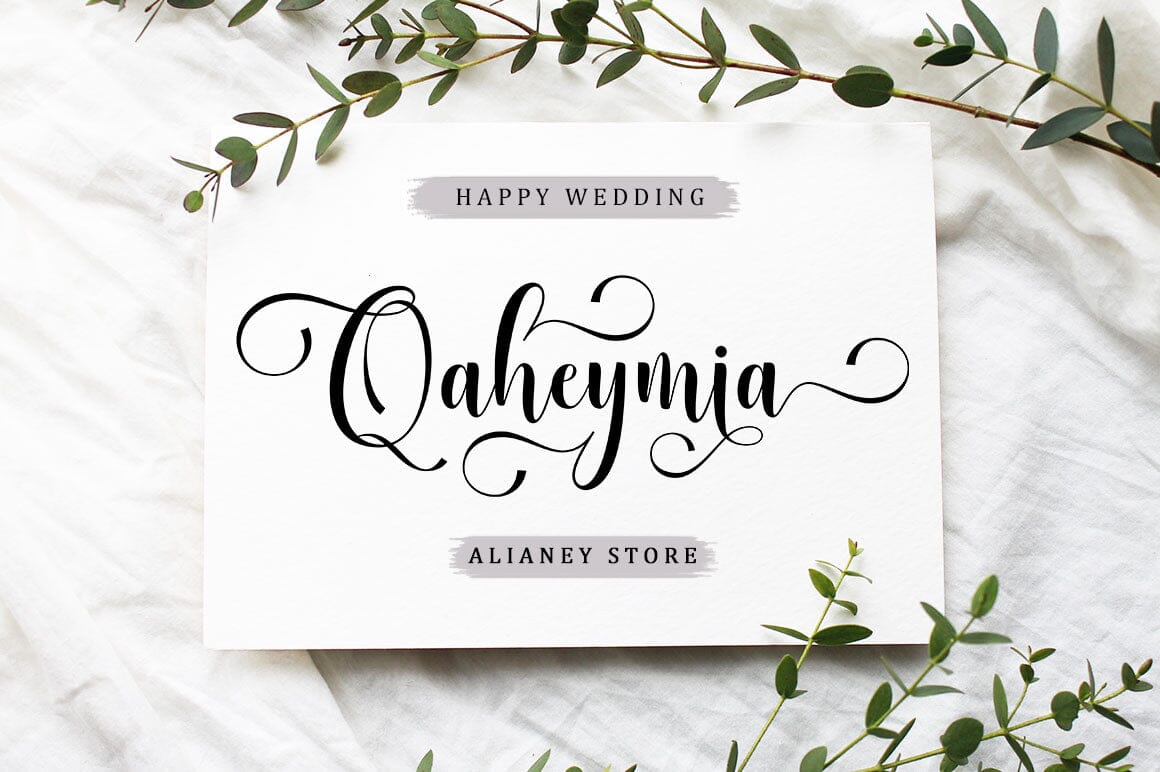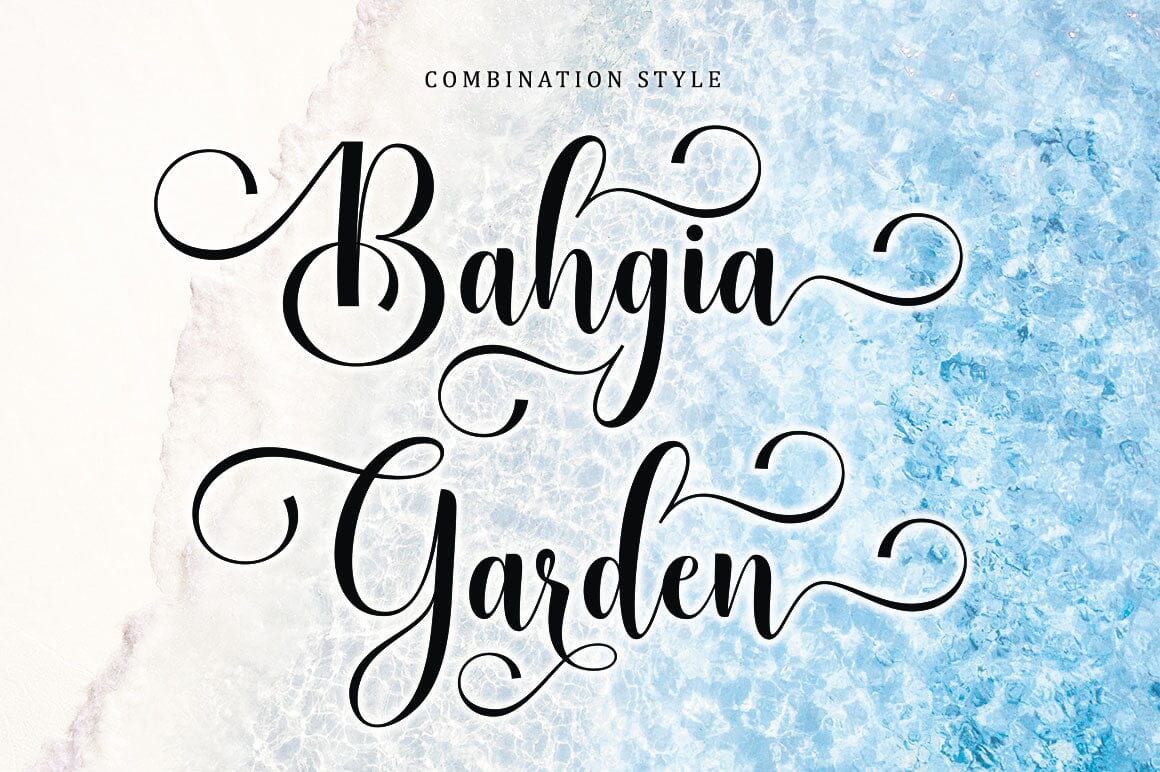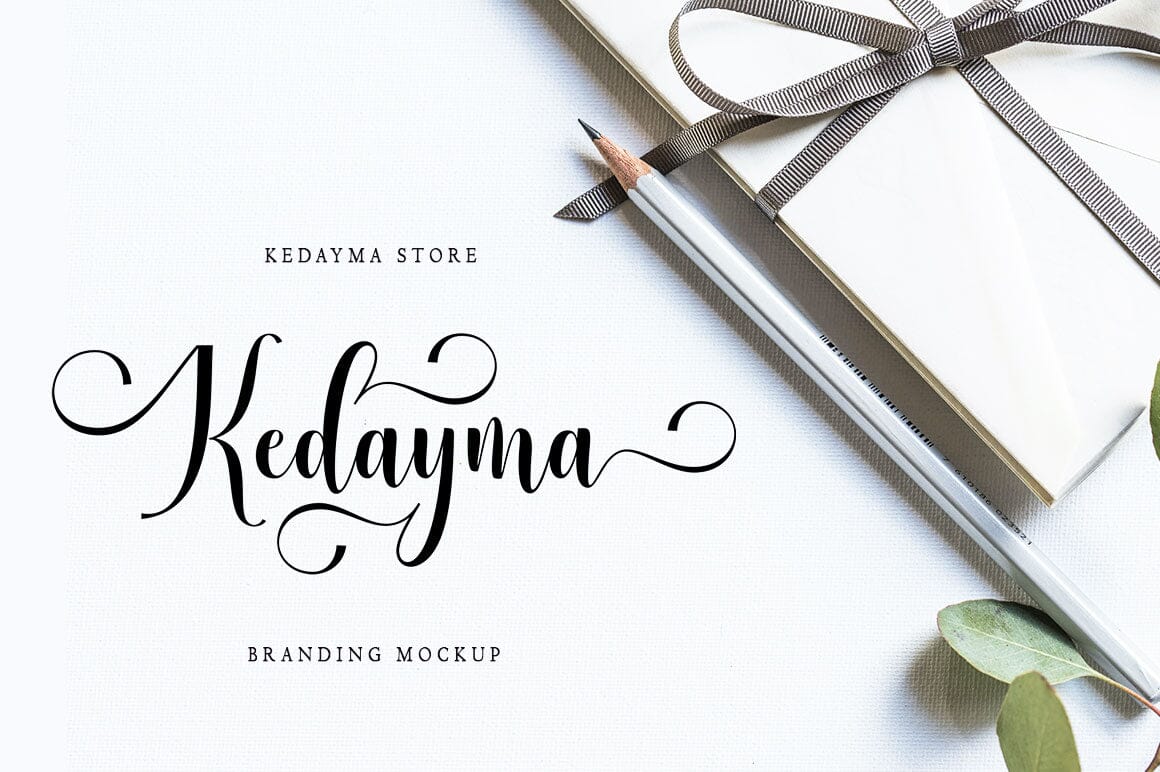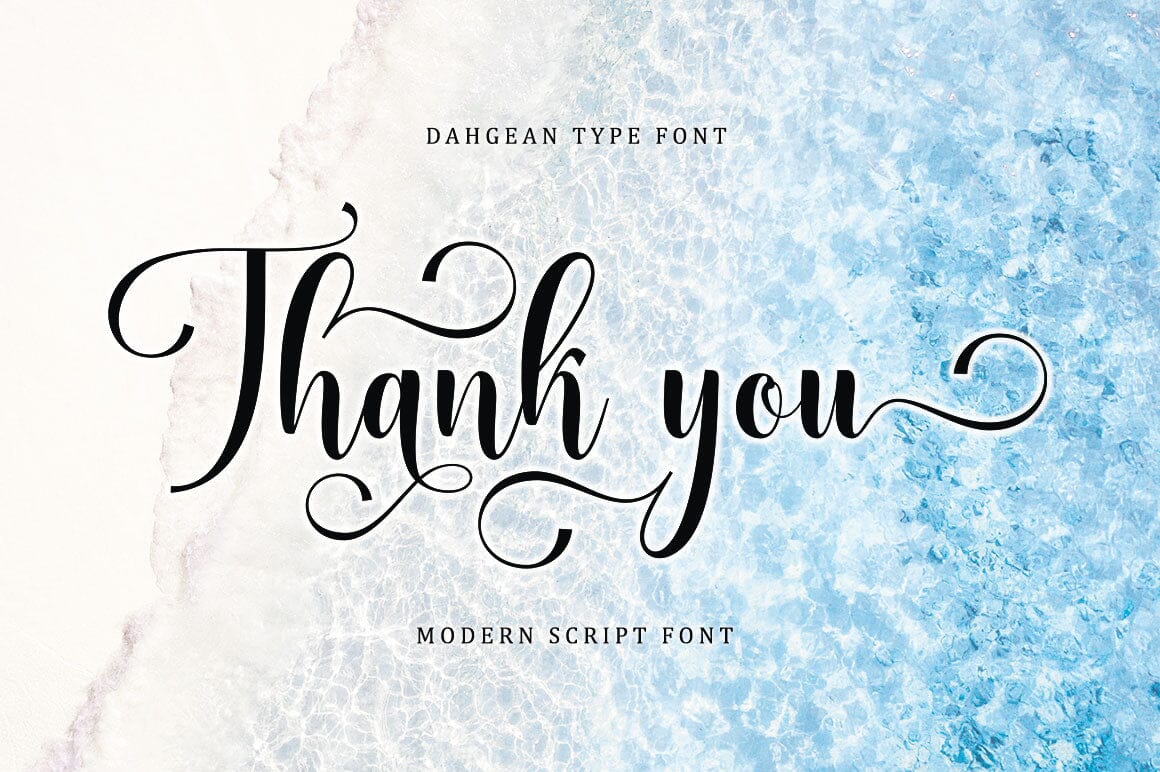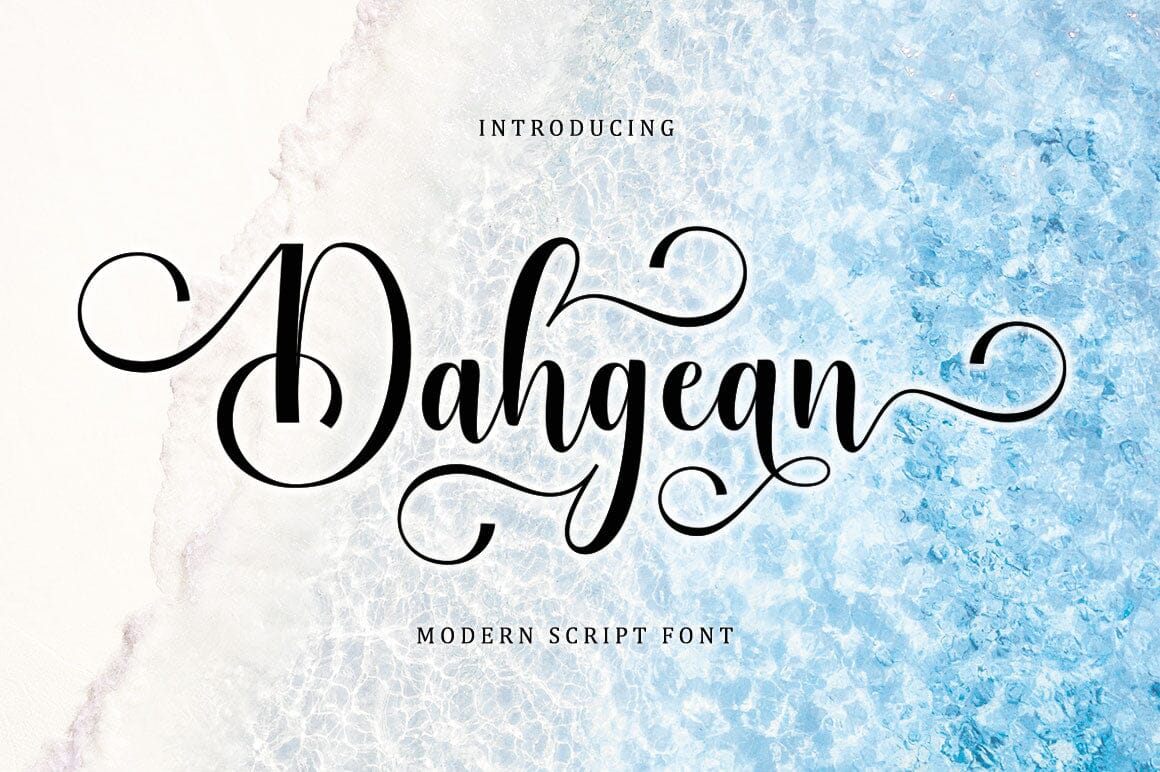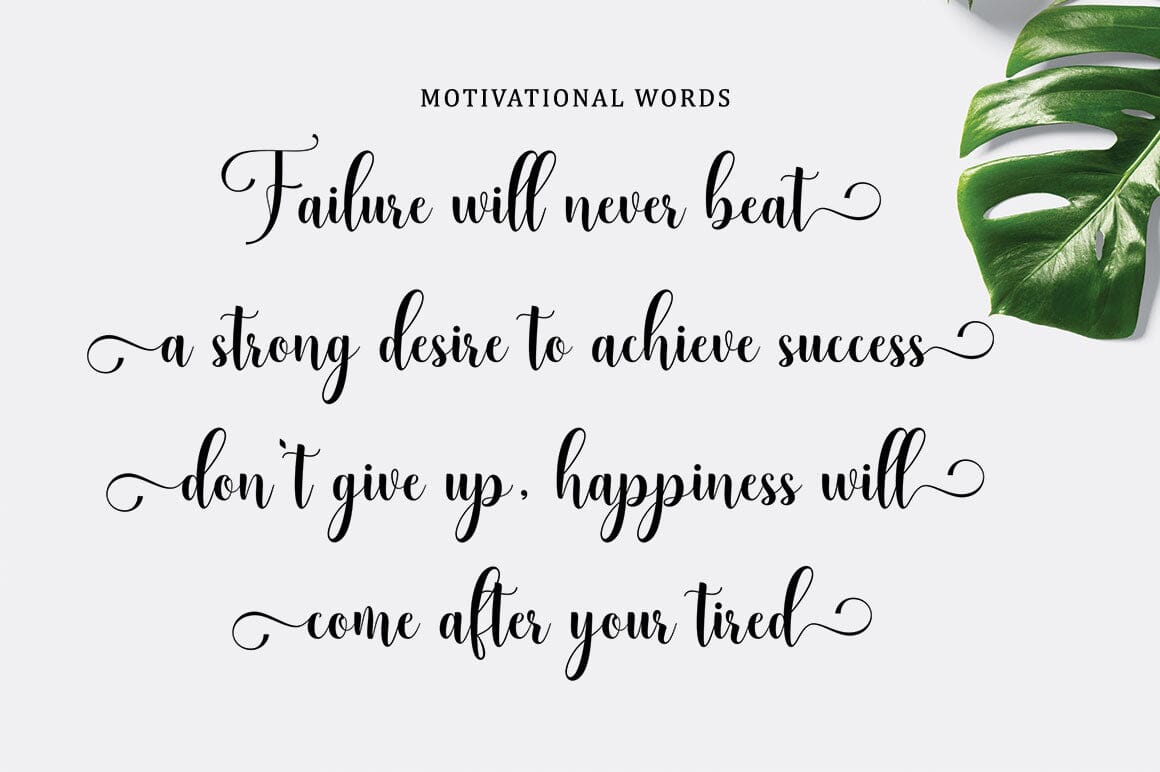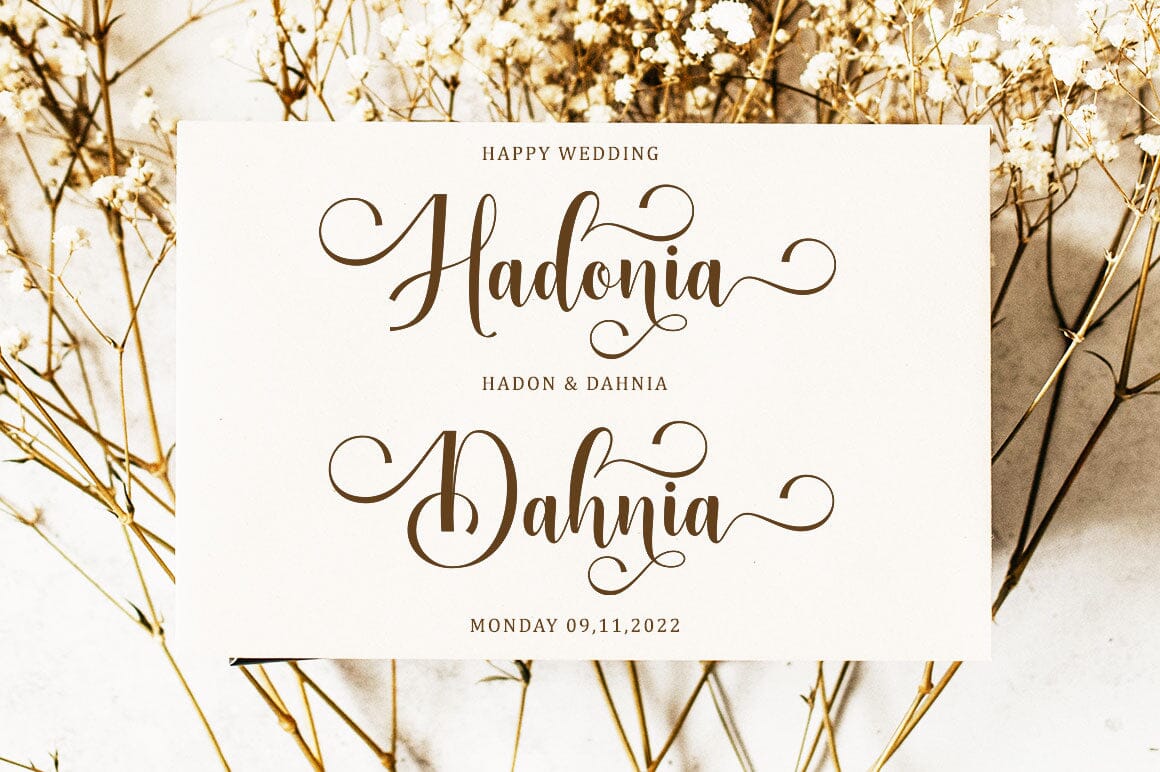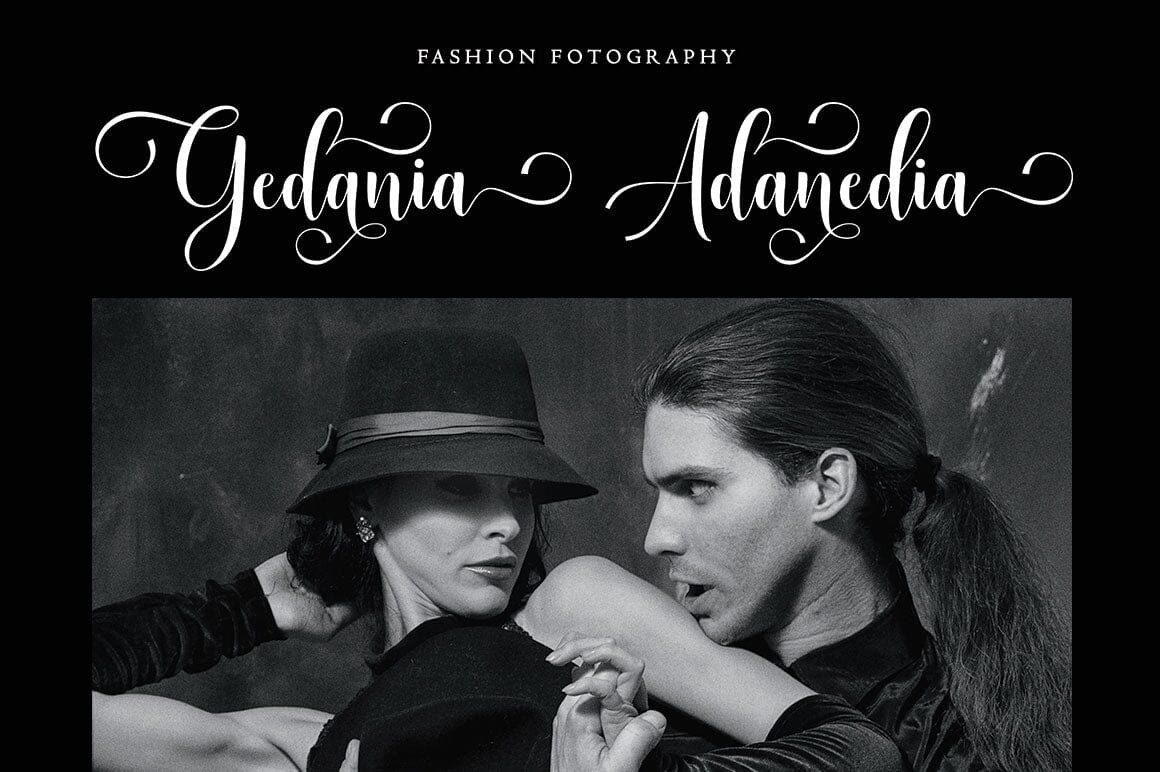
Dahgean
About Dahgean
Dahgean is a modern script font that features a classic and Unique touch. Dahgean is attractive because it is sleek, clean, feminine, sensual, glamorous, simple and very easy to read, thanks to its many beautiful letter relationships. I also offer a decent number of stylistic alternatives for some of the letters. Classic style is very suitable to be applied in various formal forms such as invitations, labels, restaurant menus, logos, fashion, make up, stationery, novels, magazines, books, greeting/wedding cards, packaging, labels or all kinds of advertising purposes. . . . . . . . . . Files include: OTF, TTF Contains full set: -Uppercase -Lowercase -Alternative -Style -Ligatures -Punctuation -Number -Multilingual support. need help or have questions let me know. I’m happy to help. Thanks & Congratulations on the Design!